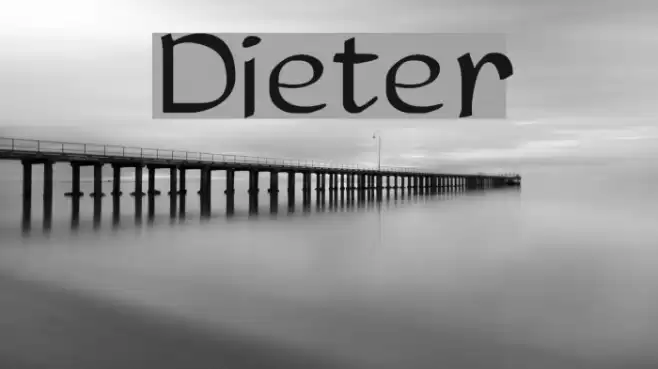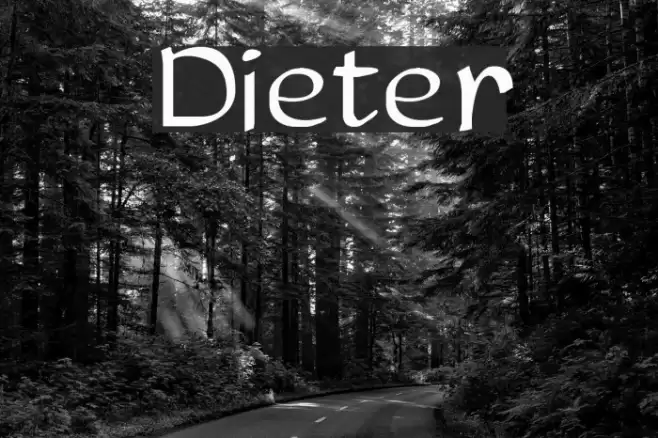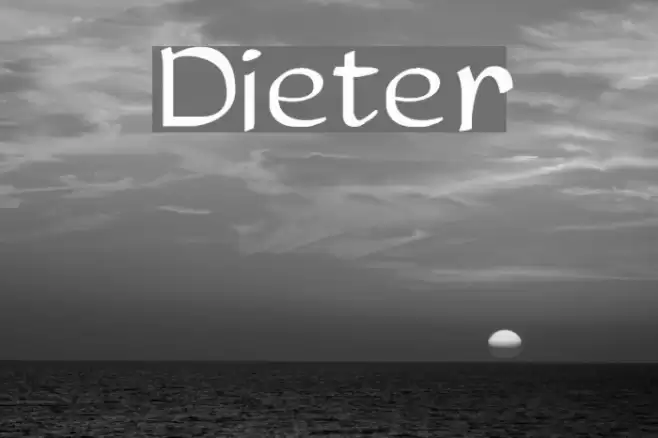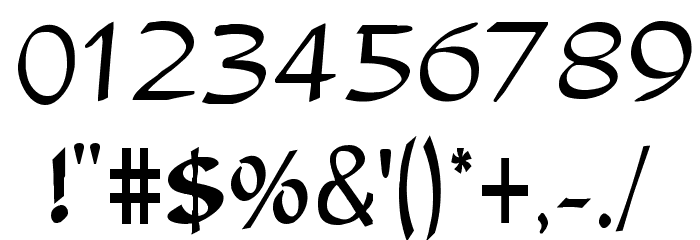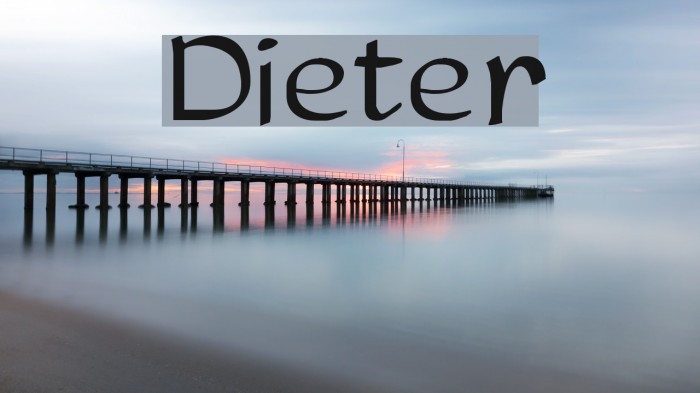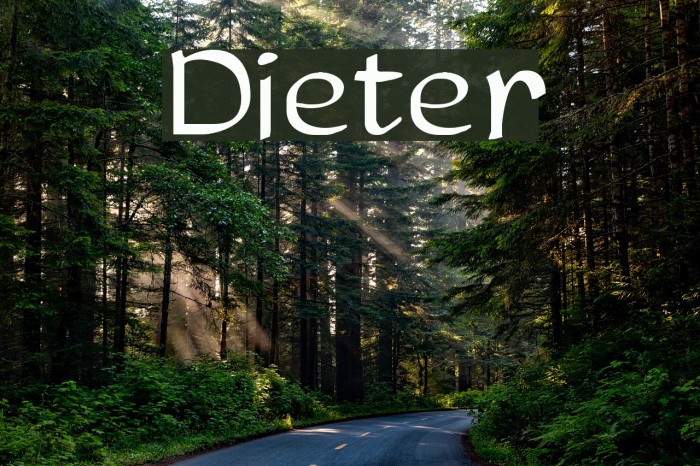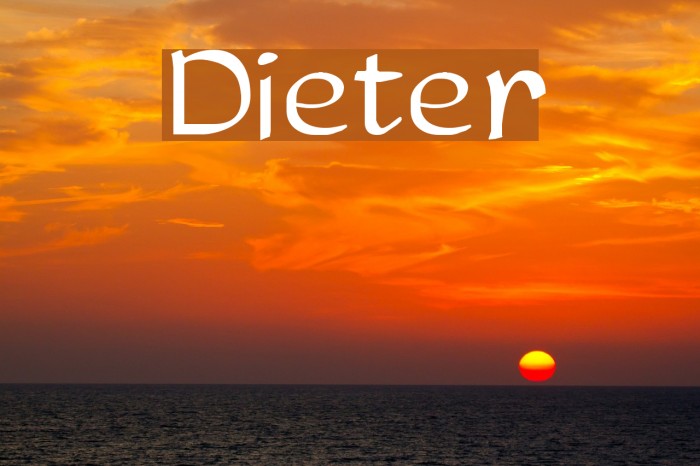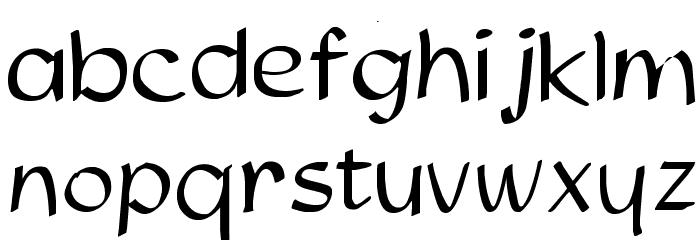
Dieter Font
Dieter Description
This font features a playful and dynamic style with a handwritten appearance. The characters are slightly irregular, giving it a casual and informal feel. The strokes are varied in thickness, adding a sense of movement and energy. The uppercase letters are bold and prominent, while the lowercase letters maintain a consistent flow. The numerals and special characters are designed to match the overall aesthetic, ensuring a cohesive look across all elements. This font is suitable for projects that require a personal touch or a creative flair.
A playful, handwritten-style font with dynamic strokes and a casual feel from Uncategorized fonts.
- Proposed Projects: Ideal for greeting cards, invitations, children's books, and creative branding.
- Overall Style: Casual, Playful
- Use Case: Headlines, Logos, Creative projects